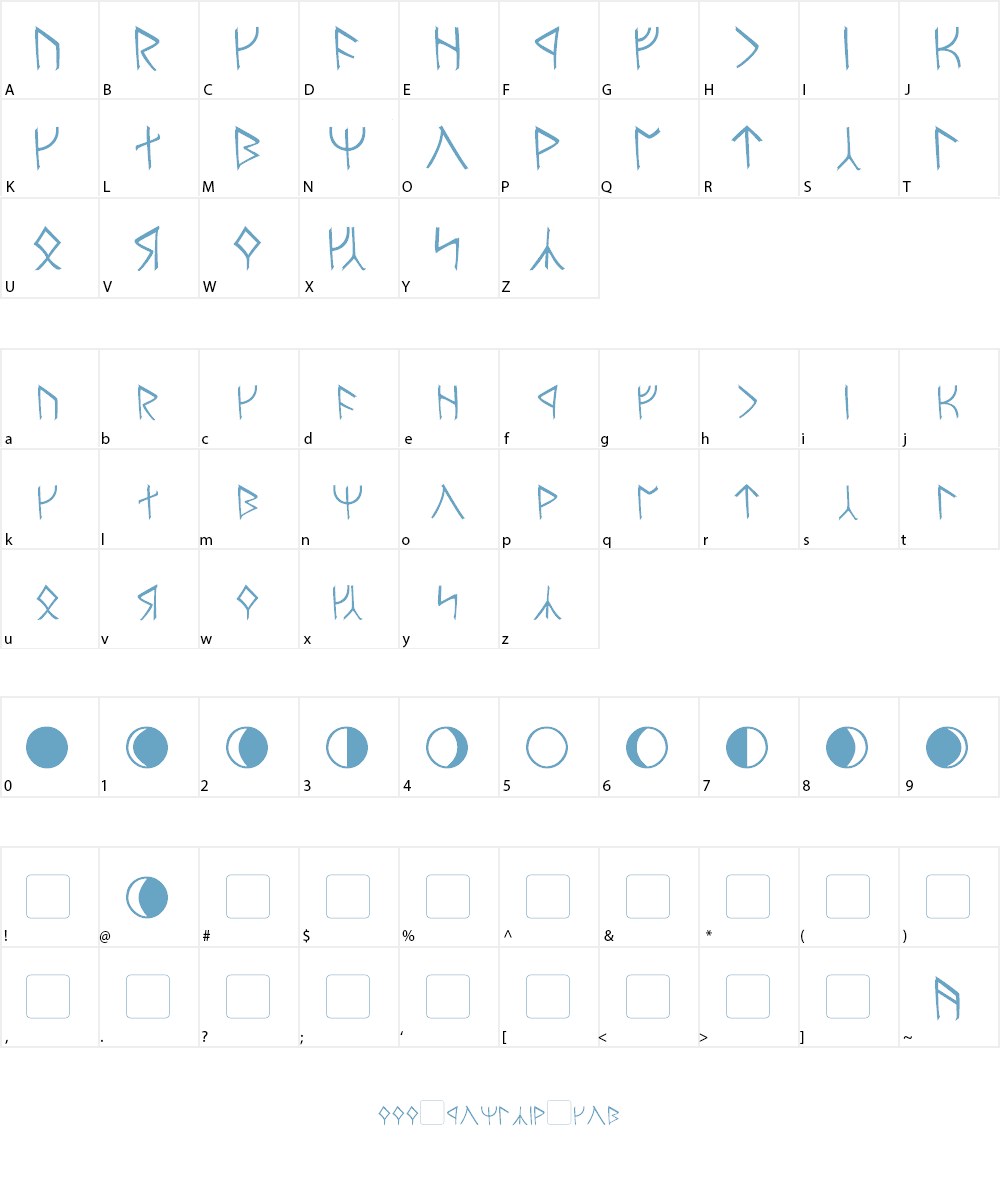
The runic font is based off the dwarven writing found within Tolkein's famous Lord of the Rings series. Includes all runes placed in their proper phonetic equivalents. Also includes 'phases of the moon' for numerals.